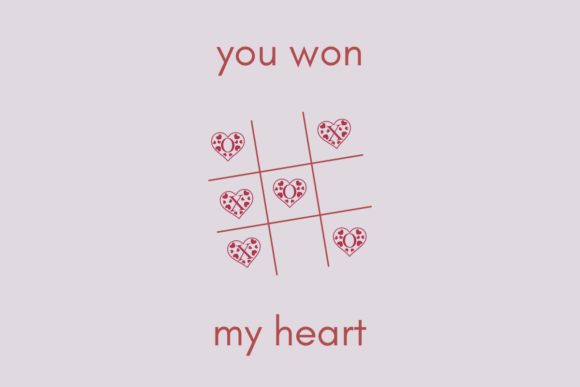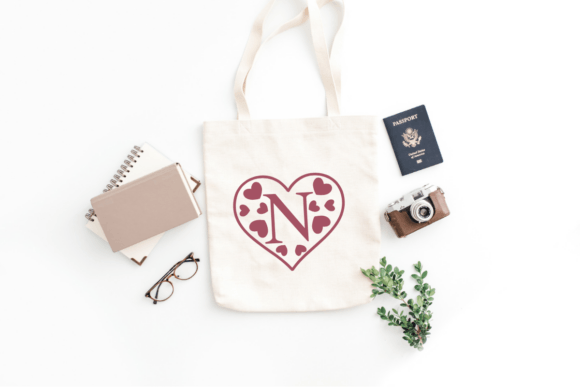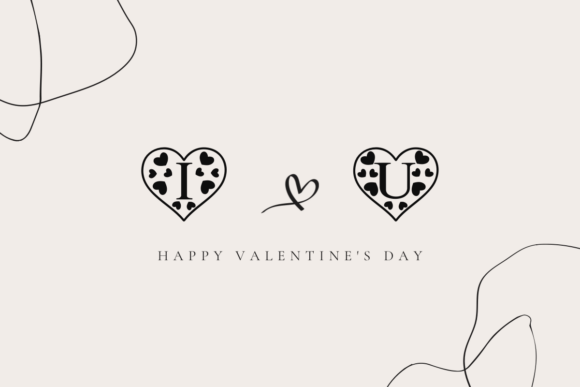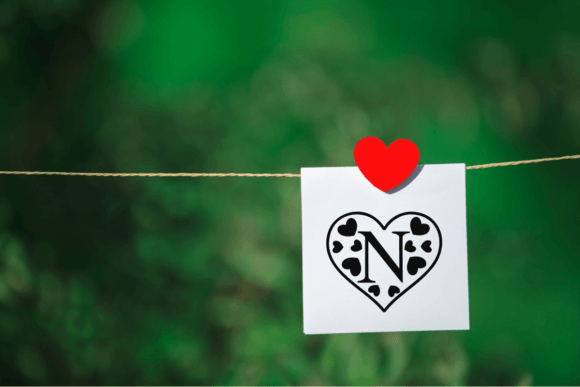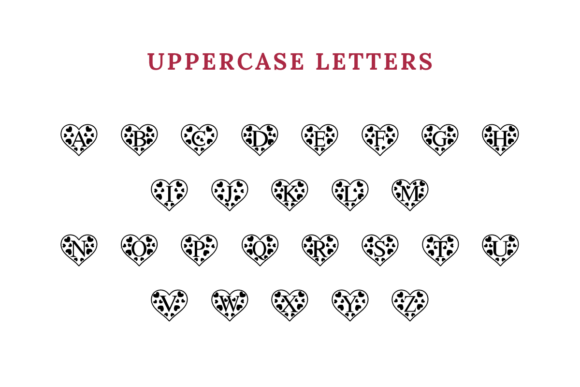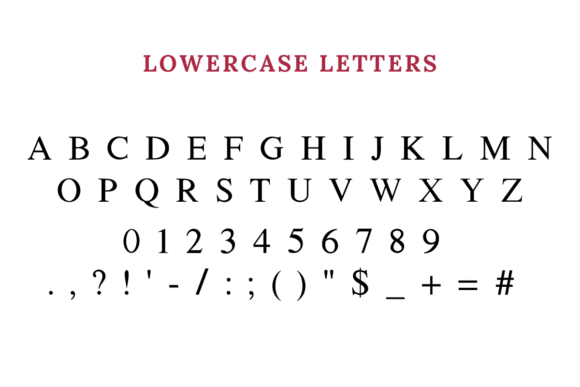
Heart Letters Font: Add a Touch of Love to Your Designs
Are you looking for a font that can add a touch of love and warmth to your designs? Look no further than the Heart Letters Font! This decorative font is perfect for designers and crafters who want to create beautiful and unique designs for various occasions. In this article, we’ll explore the features and uses of Heart Letters Font, and how you can incorporate it into your designs.
What is Heart Letters Font?
Heart Letters Font is a decorative font that features heart-shaped letters, perfect for adding a touch of love and whimsy to your designs. The font is designed to be easy to read and use, making it perfect for a variety of design projects. Whether you’re creating a greeting card, writing a diary, or making a banner, Heart Letters Font is a great choice.
Uses of Heart Letters Font
Heart Letters Font is a versatile font that can be used for a variety of design projects. Here are some ideas to get you started:
- Note-taking and journaling: Use Heart Letters Font to add a touch of personality to your notes and journal entries.
- Greeting cards: Create beautiful and unique greeting cards for special occasions like Valentine’s Day, birthdays, and anniversaries.
- Banners and signs: Use Heart Letters Font to create eye-catching banners and signs for parties, events, and promotions.
- Social media posts: Add a touch of love and whimsy to your social media posts with Heart Letters Font.
- Mugs and water bottles: Create personalized mugs and water bottles with Heart Letters Font.
- T-shirts and apparel: Design unique and stylish t-shirts and apparel with Heart Letters Font.
- Stationery and paper crafts: Use Heart Letters Font to create beautiful stationery, cards, and paper crafts.
Benefits of Using Heart Letters Font
Here are some benefits of using Heart Letters Font in your designs:
- Unique and eye-catching: Heart Letters Font is a unique and eye-catching font that can add a touch of personality to your designs.
- Easy to read: Despite its decorative nature, Heart Letters Font is easy to read and use.
- Versatile: Heart Letters Font can be used for a variety of design projects, from notes and journals to banners and signs.
- Customizable: You can customize Heart Letters Font to fit your design needs, from changing the color and size to adding effects and textures.
Tips for Using Heart Letters Font
Here are some tips for using Heart Letters Font in your designs:
- Use it sparingly: While Heart Letters Font is beautiful, it can be overwhelming if used too much. Use it sparingly to add a touch of personality to your designs.
- Experiment with colors: Heart Letters Font looks great in a variety of colors, from bright and bold to soft and pastel.
- Pair it with other fonts: Pair Heart Letters Font with other fonts to create a unique and interesting design.
- Have fun: Most importantly, have fun with Heart Letters Font! Experiment with different designs and ideas to see what works best for you.
Heart Letters Font is a beautiful and versatile font that can add a touch of love and whimsy to your designs. Whether you’re a designer, crafter, or simply someone who loves to create, Heart Letters Font is a great choice. With its ease of use, customizability, and unique design, Heart Letters Font is perfect for a variety of design projects. So why not give it a try and see what amazing designs you can create?